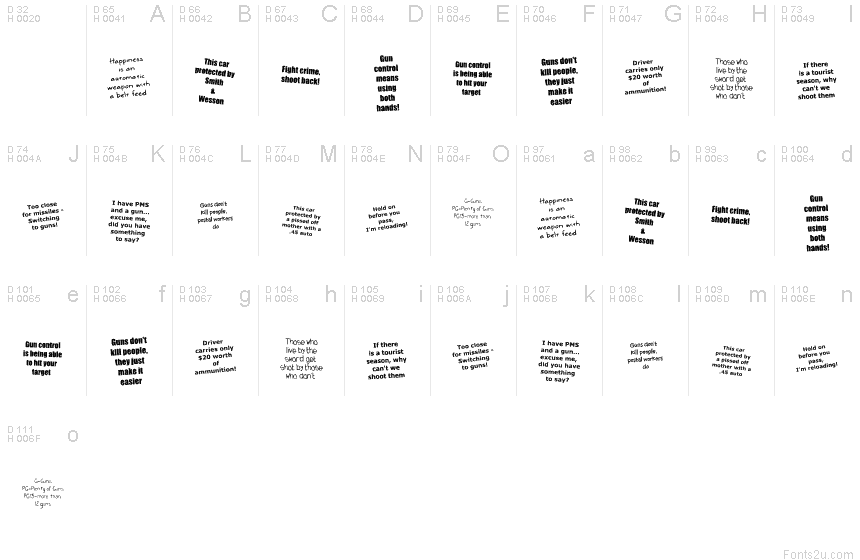
KR Gunz
KR Gunz font by Katsfuntfonts is a free dingbat typeface that packs a tongue‑in‑cheek punch. Letters and symbols land with a chunky, slightly crooked energy, like bold marker scrawled across a warning sign. The gun-themed graphics and snarky attitude give your layouts that loud, sticker-on-a-bumper feel—more playful than threatening, but definitely not shy.
Using KR Gunz, you can crank up the attitude on T‑shirt designs, gag posters, bumper stickers, party invites, flyers, and meme graphics. The shapes read quickly at a glance, so this free font works best big and bold, where its rough humor can really shout. Try pairing it with a clean, neutral sans serif for body text to keep your message readable while the dingbats grab all the attention.